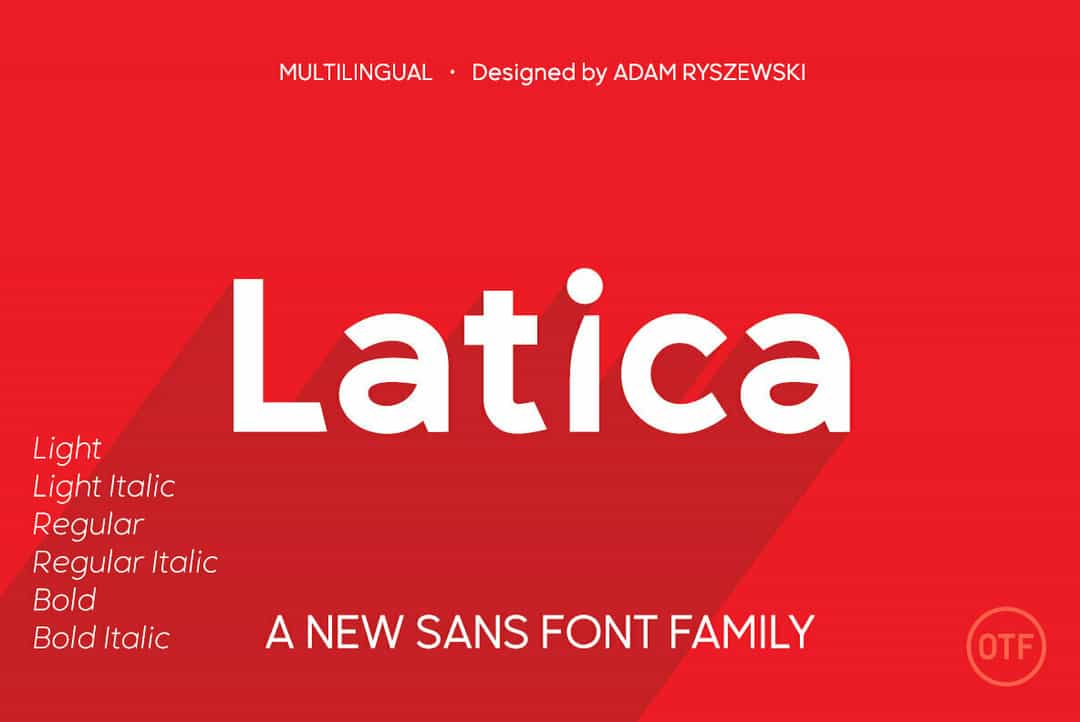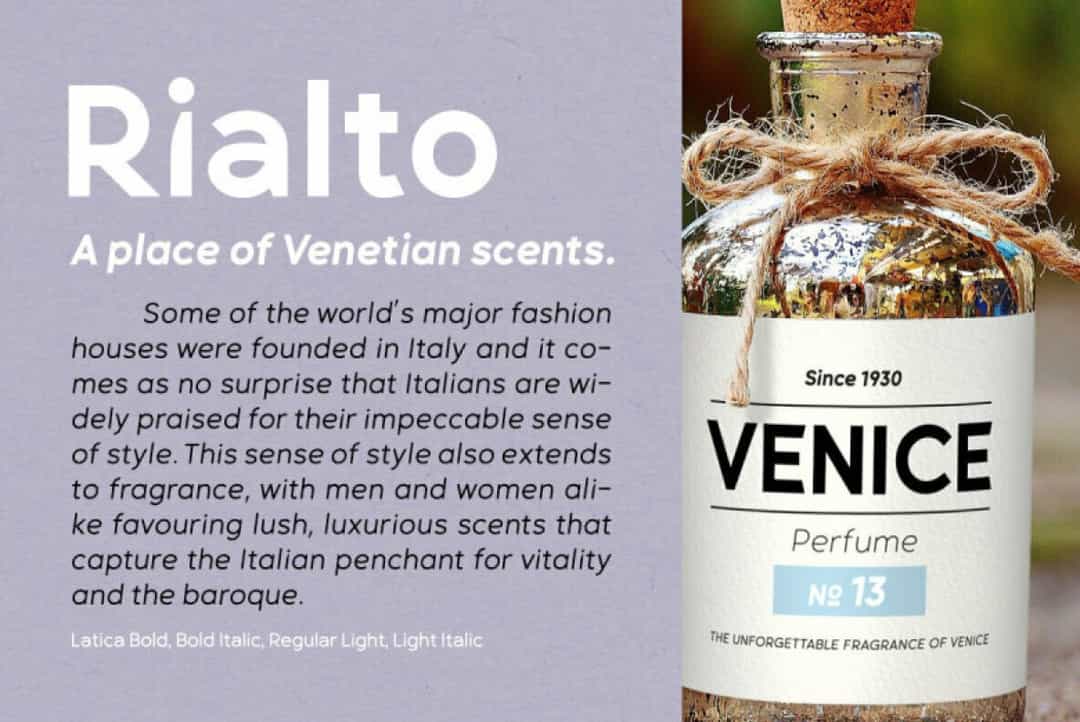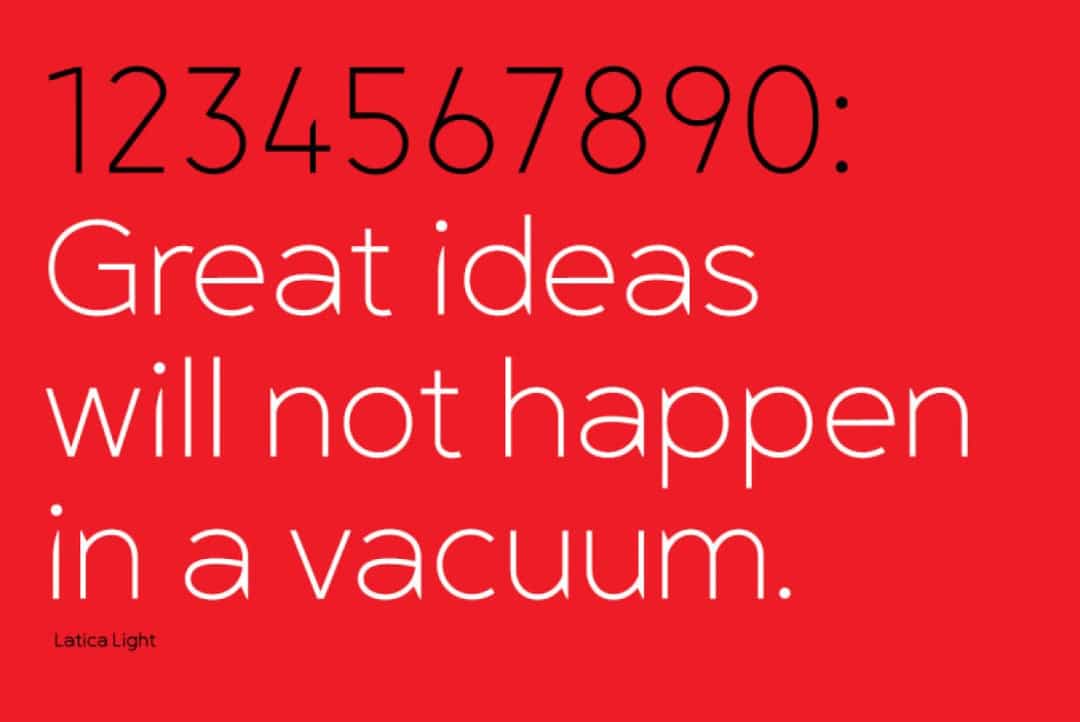
Latica is an original, brand new geometric sans serif typeface family with visually appealing capital letters in both upper and lower cases, spaced out for maximum accessibility. Suitable for websites, magazines posters brandings posters and more it supports multilingualism as a great choice of typeface.